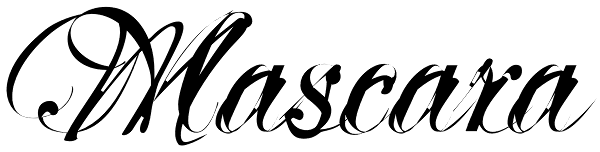
Mascara
Mascara is one of those organic extremes that usually make people's jaw drop in big silent awe. The way such things are built is usually quite simple, given the right software and/or tools. In this case, we superimposed the drawings from two of our...